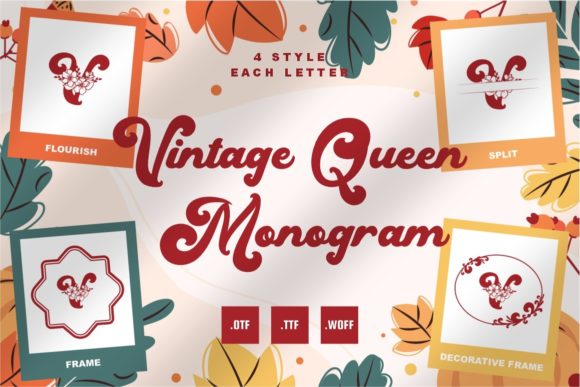
**Introducing Vintage Queen Monogram: The Regal Touch for Your Typographic Masterpieces**
Welcome, design enthusiasts and lovers of the exquisite, to the realm of Vintage Queen Monogram, a decorative font that will transport your creations to a bygone era of elegance and opulence. This meticulously crafted font, a masterpiece from the talented hands of putracetol, is adorned with intricate details and flourishes that will captivate your audience.
**Unleash the Power of Monograms**
Vintage Queen Monogram is a font specifically tailored to the art of monogramming, an enduring tradition that adds a touch of timeless sophistication to any project. Whether you're personalizing stationery, creating bespoke logos, or designing enchanting invitations, this font will elevate your work to new heights.
**Exceptional Versatility, Endless Possibilities**
Beyond its monogrammatic prowess, Vintage Queen Monogram is an exceptionally versatile font that can effortlessly adapt to a wide range of design styles and applications. Its intricate flourishes add a touch of vintage charm to modern designs, while its timeless elegance complements traditional aesthetics beautifully.
**Unleash Your Creativity, Leave a Lasting Impression**
With Vintage Queen Monogram, your imagination is the only limit. Create breathtaking wedding invitations that exude romance and sophistication, design business cards that command attention with their regal flair, or add a touch of whimsy to social media graphics. This font will transform your words into works of art, leaving a lasting impression on your audience.
**Technical Excellence for Seamless Integration**
Crafted with meticulous attention to detail, Vintage Queen Monogram ensures a flawless experience for designers of all levels. Its clean lines and crisp edges make it a joy to work with, while its compatibility with various design software ensures seamless integration into your workflow.
**Embrace the Vintage Charm, Step into a World of Elegance**
Vintage Queen Monogram is more than just a font; it's an invitation to step into a world of timeless beauty and impeccable style. Adorn your designs with its intricate flourishes and witness the transformative power it brings to your creations.